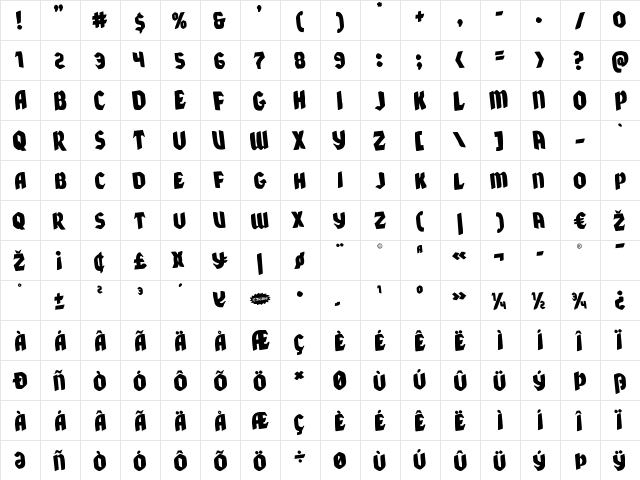
Xmas Xpress Rotated Regular
Design Context for Xmas Xpress Rotated Typeface
Xmas Xpress Rotated is a composed and adaptable typeface that performs quietly and consistently across a wide range of design contexts.